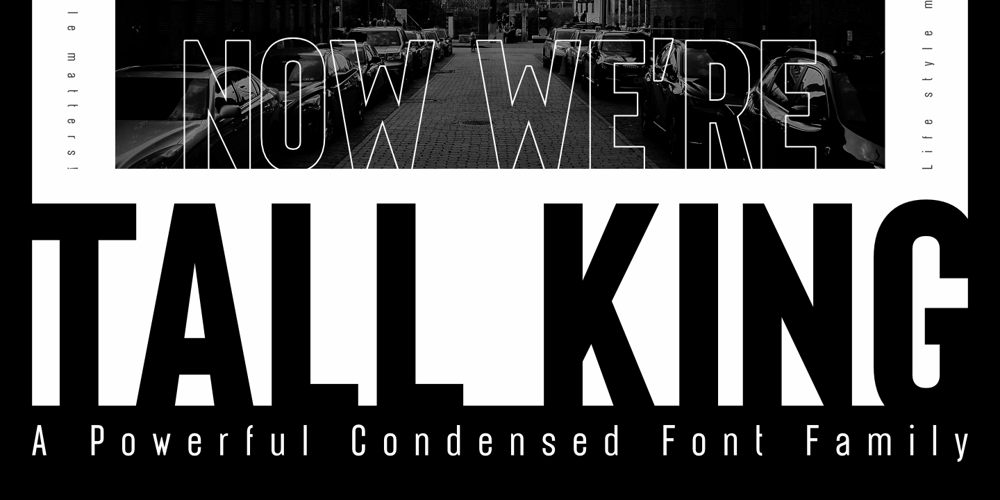
Tall King Font Family was designed by Alfin Weniardi and published by Lone Army. Tall King contains 10 styles and family package options. Discover our latest condensed font: a perfect blend of strength and elegance. Designed for impactful headlines and sophisticated branding, it delivers style and clarity in every character.